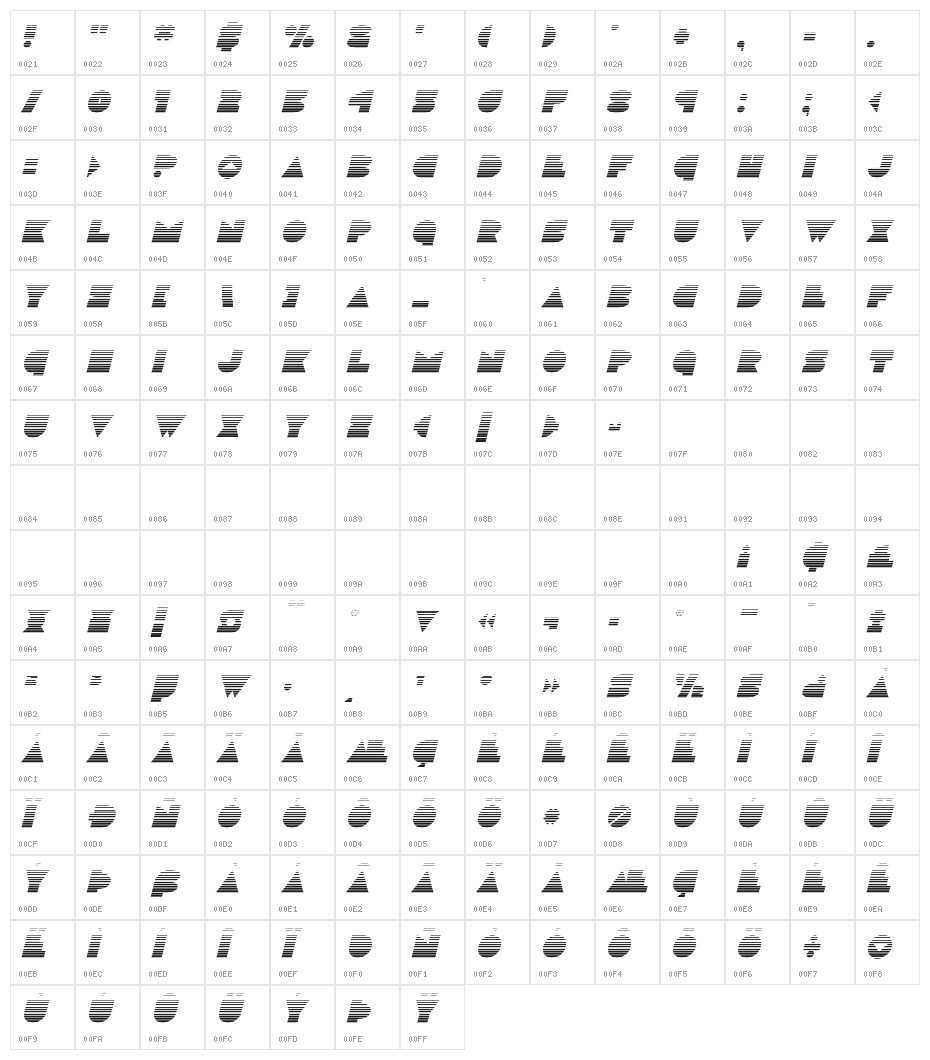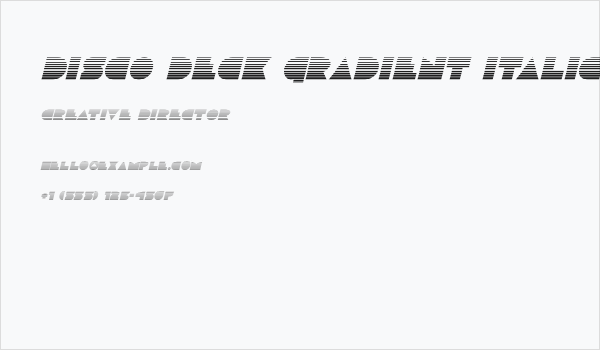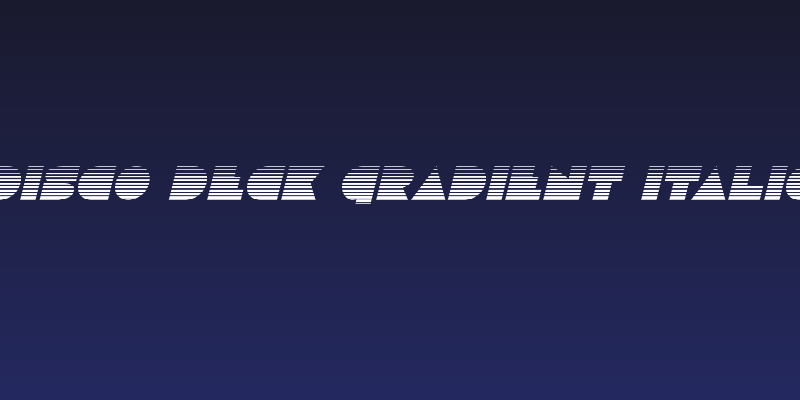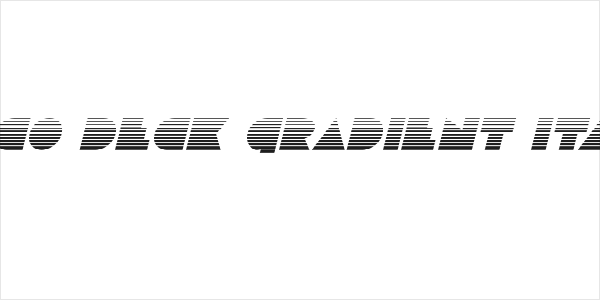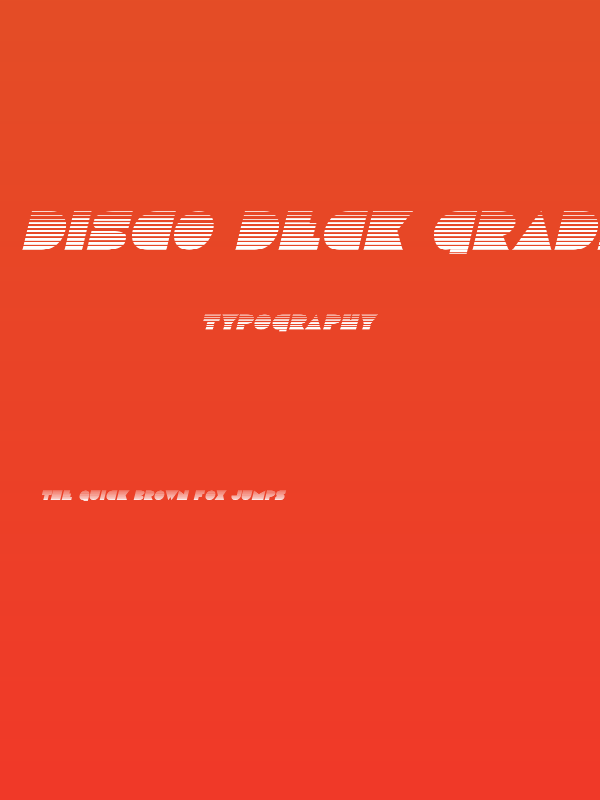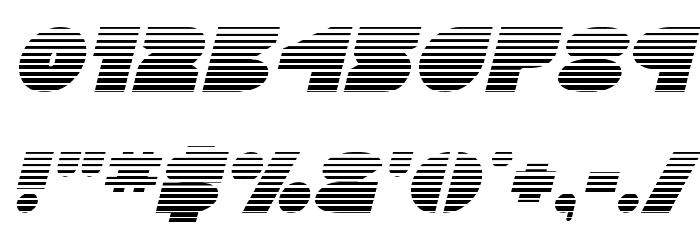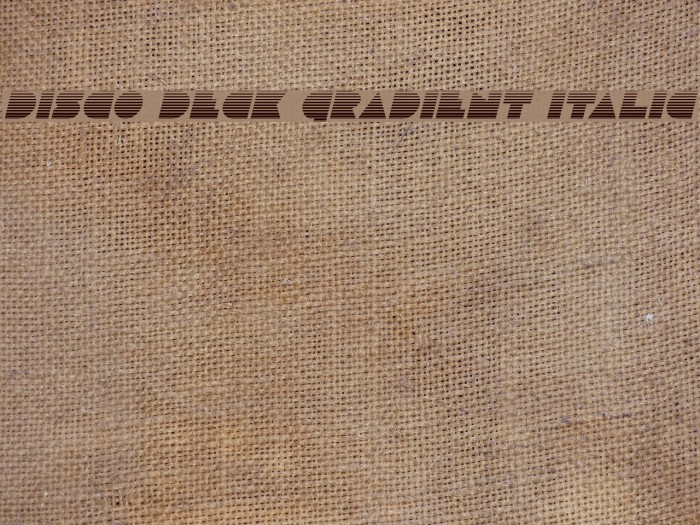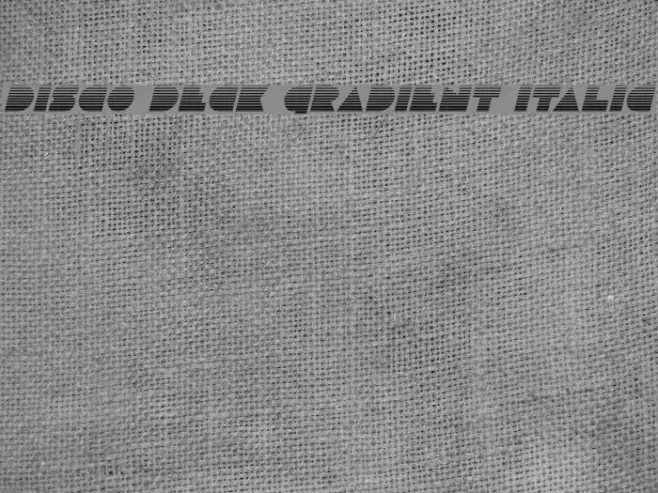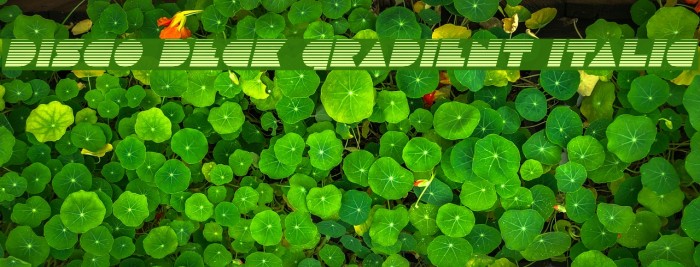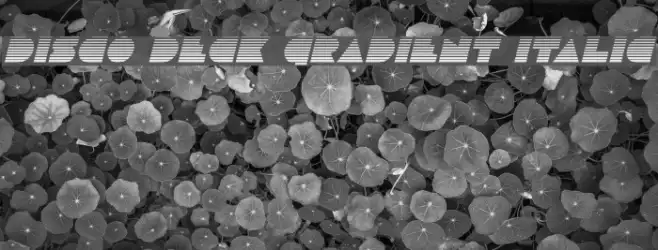
Disco Deck Gradient Italic Font
Disco Deck Gradient Italic Description
This font features a dynamic, striped design with a distinct italic slant, creating a sense of movement and energy. The characters are composed of horizontal lines that vary in thickness, giving a gradient-like appearance. This unique style is reminiscent of retro and disco aesthetics, making it a standout choice for eye-catching designs. The uppercase and lowercase letters maintain a consistent style, while the numbers and special characters complement the overall theme. The font's bold and decorative nature makes it ideal for projects that require a strong visual impact.
| Proposed Projects | Ideal for music album covers, event posters, retro-themed branding, and digital artwork. |